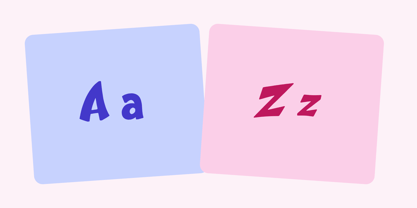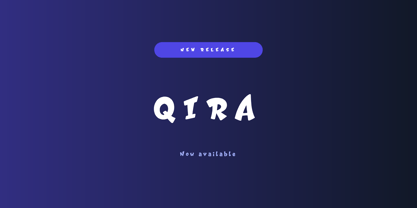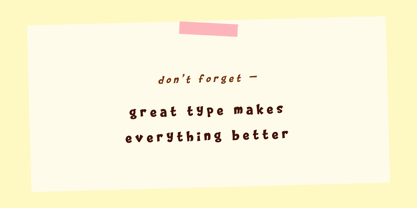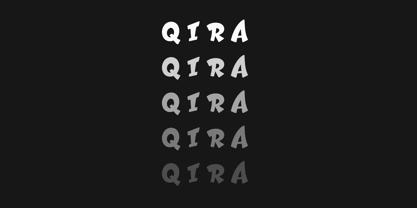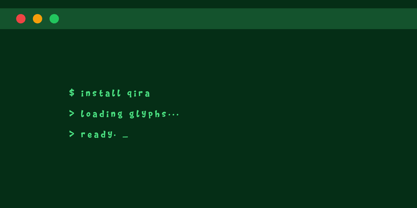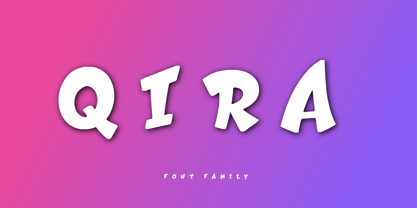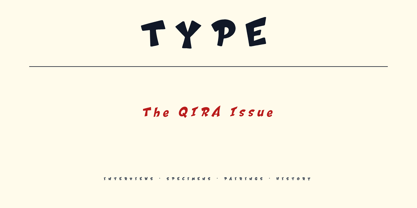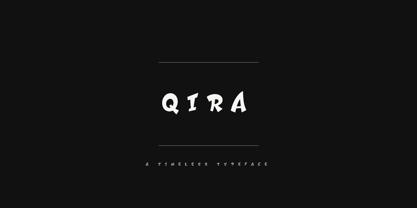
Qira
Qira is a bold, playful display typeface designed to bring energy, personality, and creativity to every design. Featuring chunky black letterforms, dynamic curves, and distinctive comic-inspired styling, Qira delivers exceptional readability while maintaining a fun, expressive character. Perfect for logos, branding, games, comics, posters, children's products, packaging, social media, and eye-catching headlines, Qira adds a memorable and cheerful voice to any creative project.
Features
Bold display font
Playful comic style
Solid black glyphs
Clean vector-friendly shapes
High readability
Expressive personality
Distinctive letterforms
Excellent for large headlines